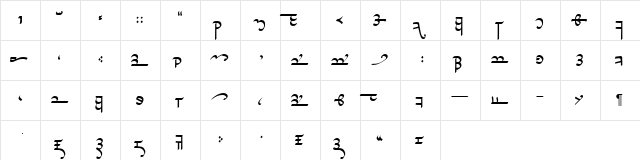
Tirion Sarati Regular Font Preview
Tirion Sarati Regular
Design Context for Tirion Sarati Typeface
Tirion Sarati is a composed and adaptable typeface that performs quietly and consistently across a wide range of design contexts.